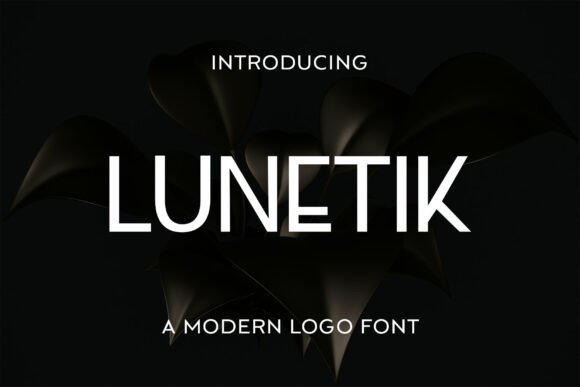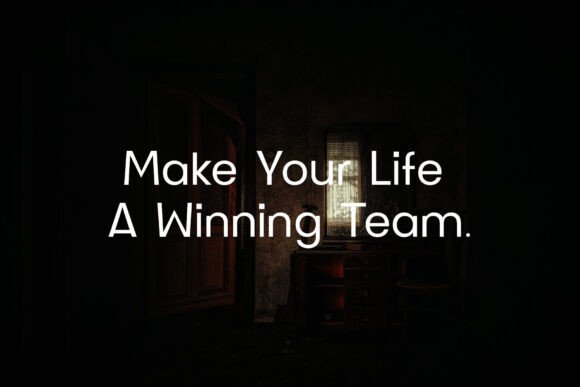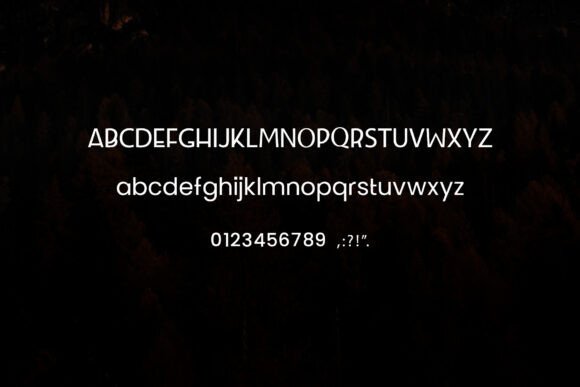
Lunetik Font: A Clean, Modern Sans Serif for Logo Design
About the Lunetik Font
Explore the possibilities with Lunetik Font, a font that offers both beauty and functionality. LUNETIK is a new addition to the world of typography. This font is casual, friendly, and perfect for any kind of creative endeavor you may be using.
Contains all capital letters, numbers, and basic punctuation.
Lunetik’s casual, friendly nature makes it ideal for headlines, short-form text on posters or packaging, and branding elements requiring a playful yet approachable feel. It works particularly well for projects targeting a younger demographic or conveying a sense of fun and approachability. Avoid using Lunetik for body text or long paragraphs; its legibility suffers at smaller sizes.
Its informal style pairs effectively with clean sans-serif fonts like Open Sans for a balanced contrast, or a more geometric sans-serif such as Roboto for a modern feel. For a sophisticated touch, consider pairing it with a delicate script font, using Lunetik for headlines and the script for smaller accent text.
Lunetik projects a bold, friendly personality, perfect for brands aiming for a youthful and energetic image. It’s less suitable for projects requiring a high degree of sophistication or formality.
Lunetik Font Usage Examples
Lunetik Font Example